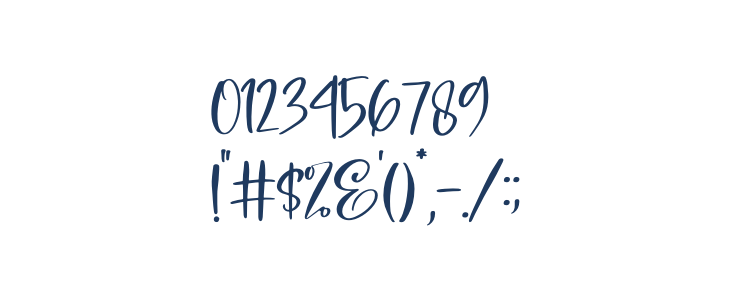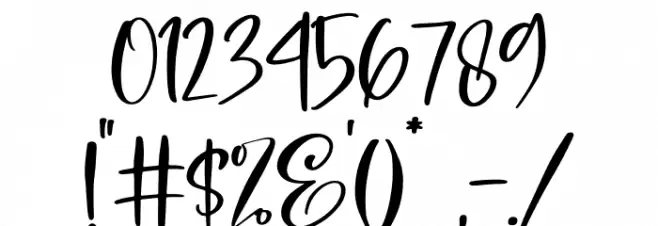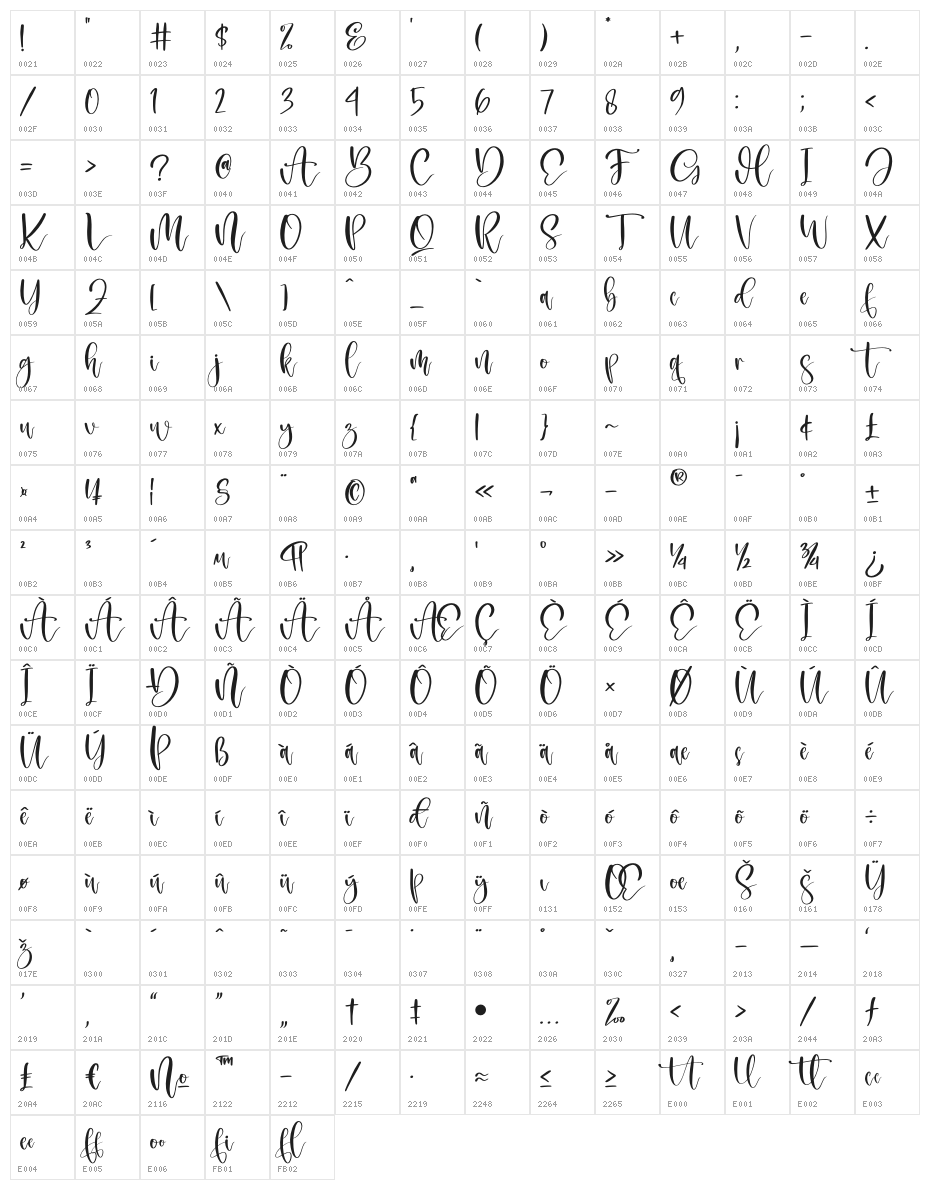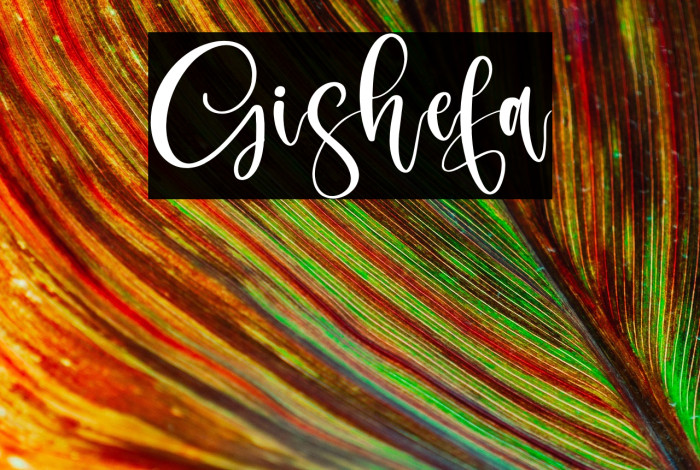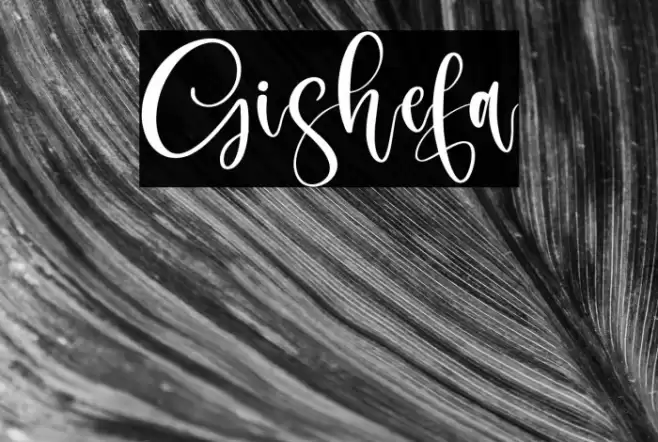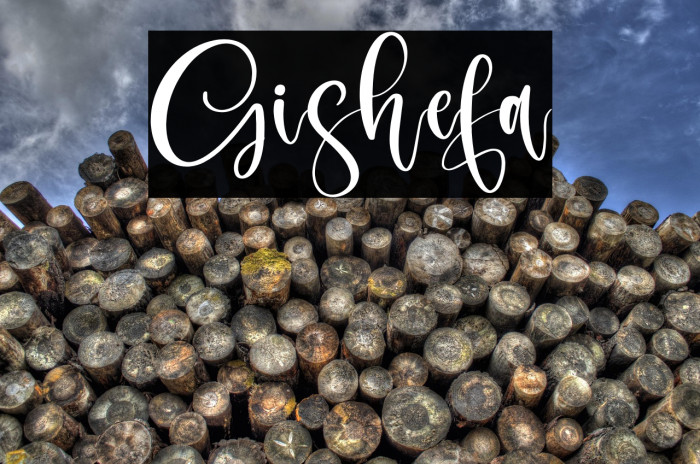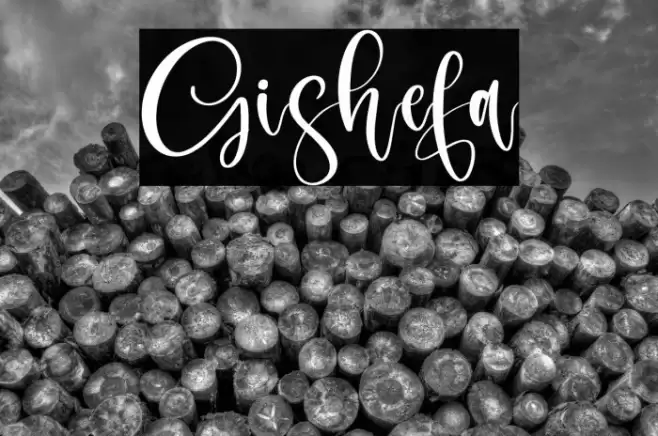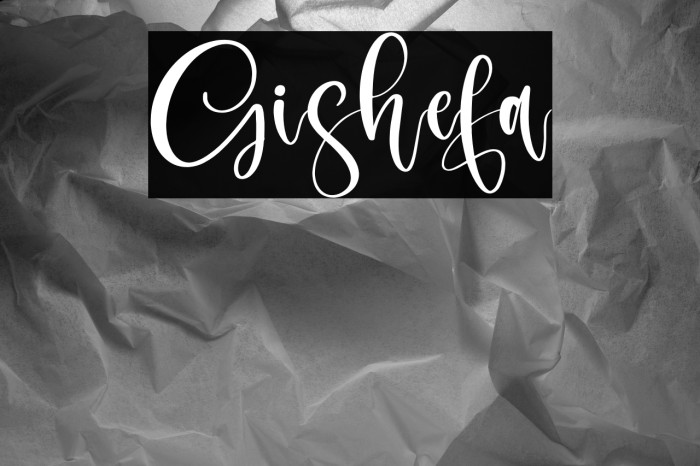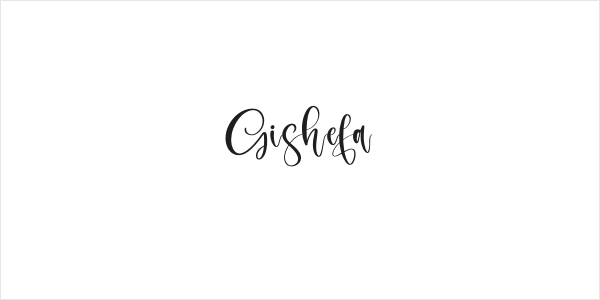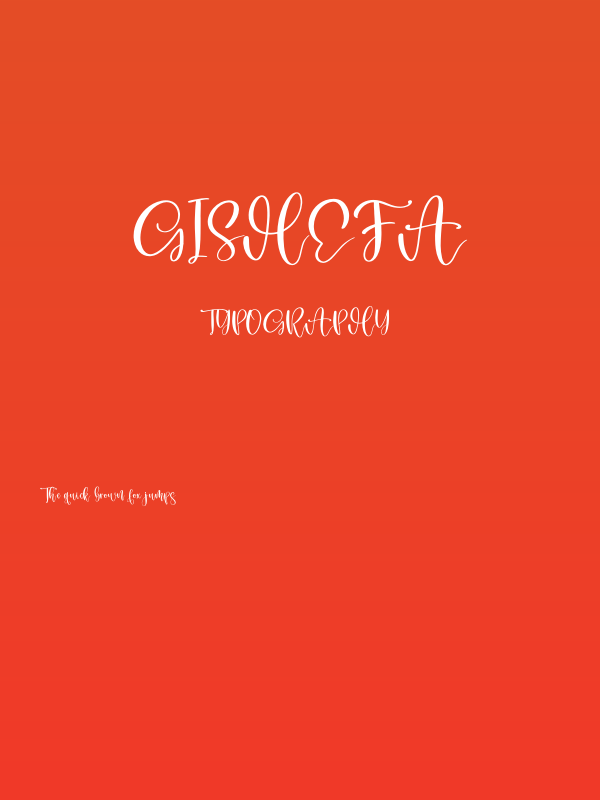
Gishefa Font
Gishefa Description
This font features an elegant, flowing script style with a modern touch. The characters are intricately designed with smooth curves and a handwritten feel, giving it a personal and artistic appearance. The uppercase letters are bold and expressive, while the lowercase letters maintain a consistent fluidity. Numbers and special characters are crafted with the same attention to detail, ensuring a cohesive look across all elements. The font's playful yet sophisticated style makes it versatile for various creative projects.